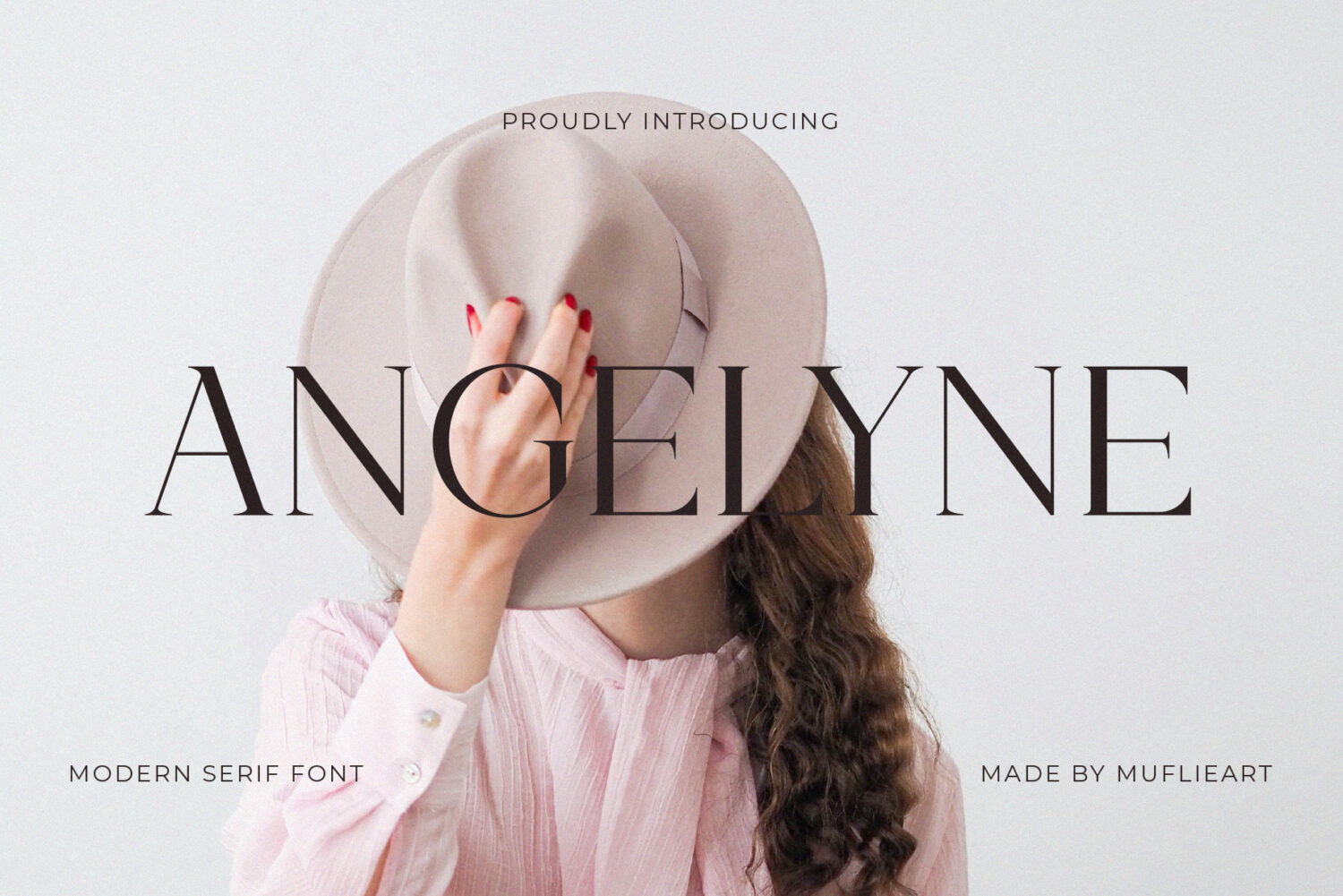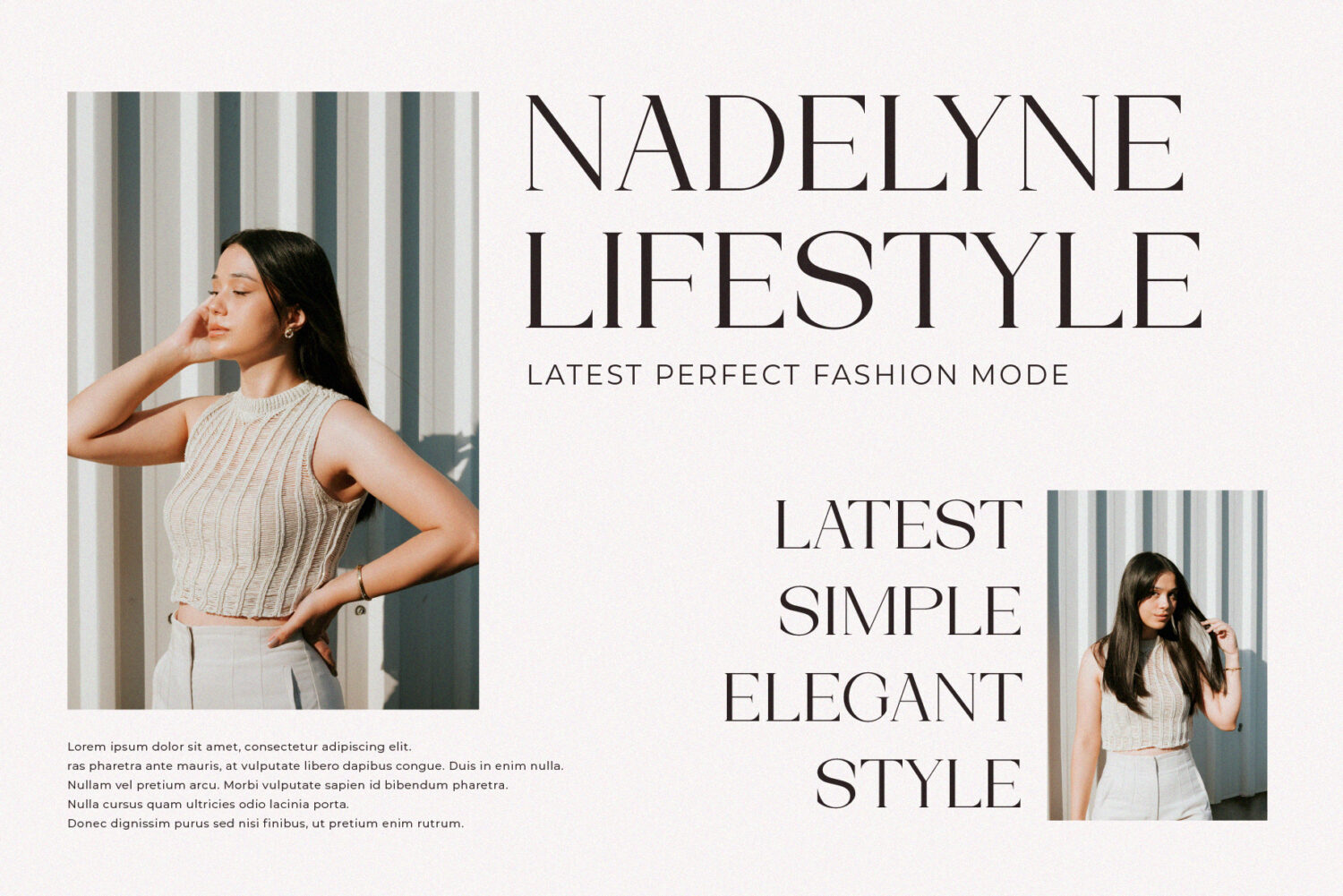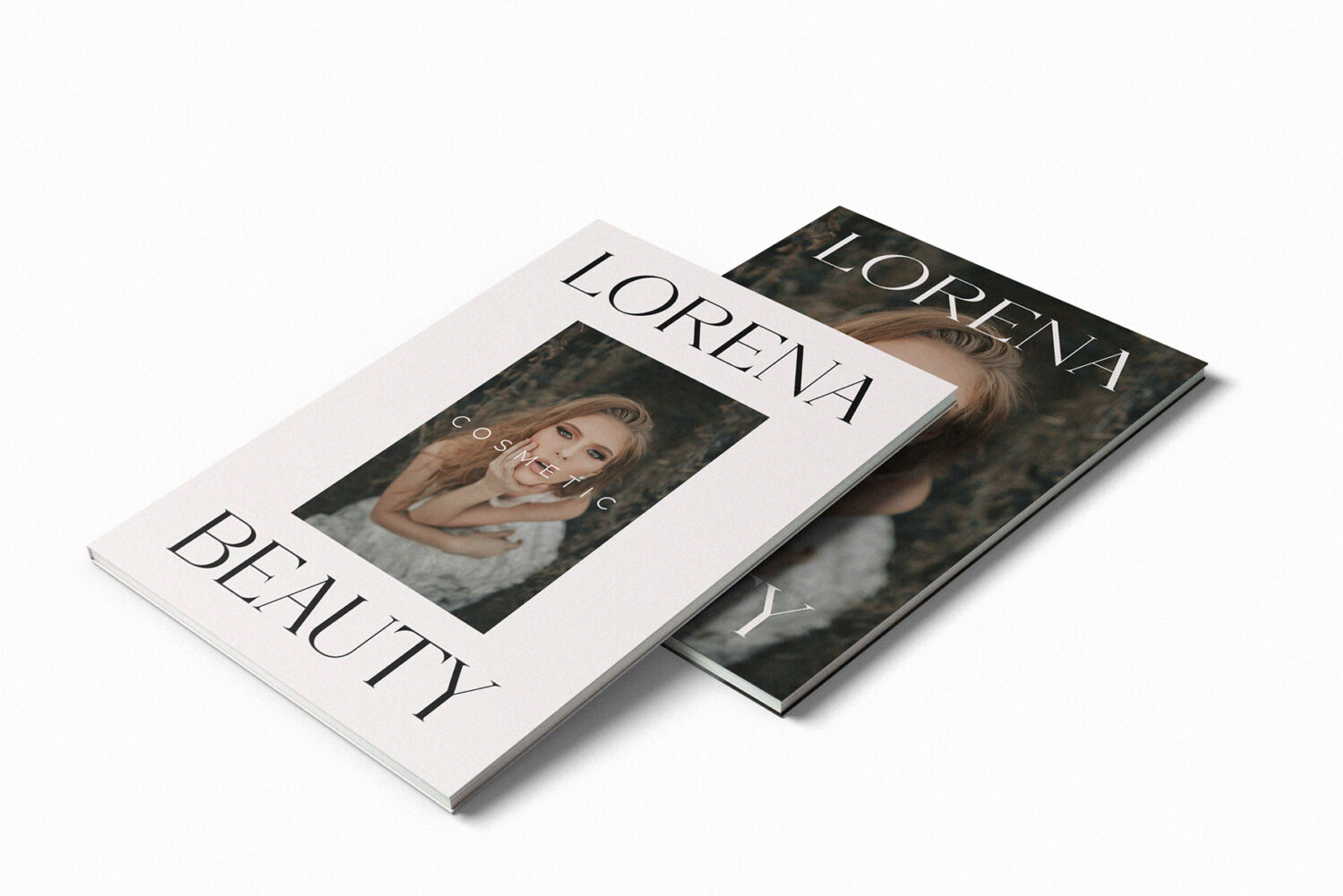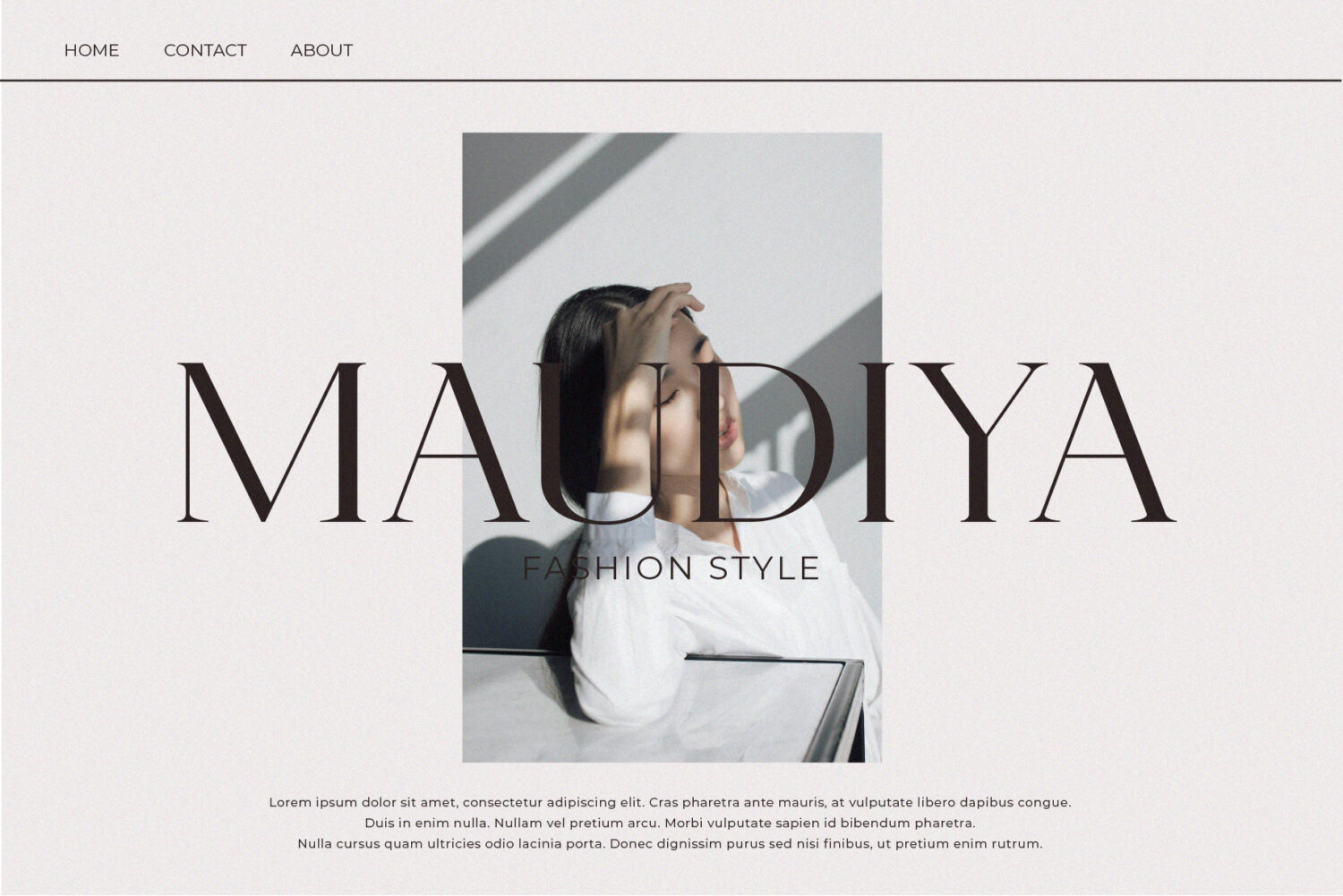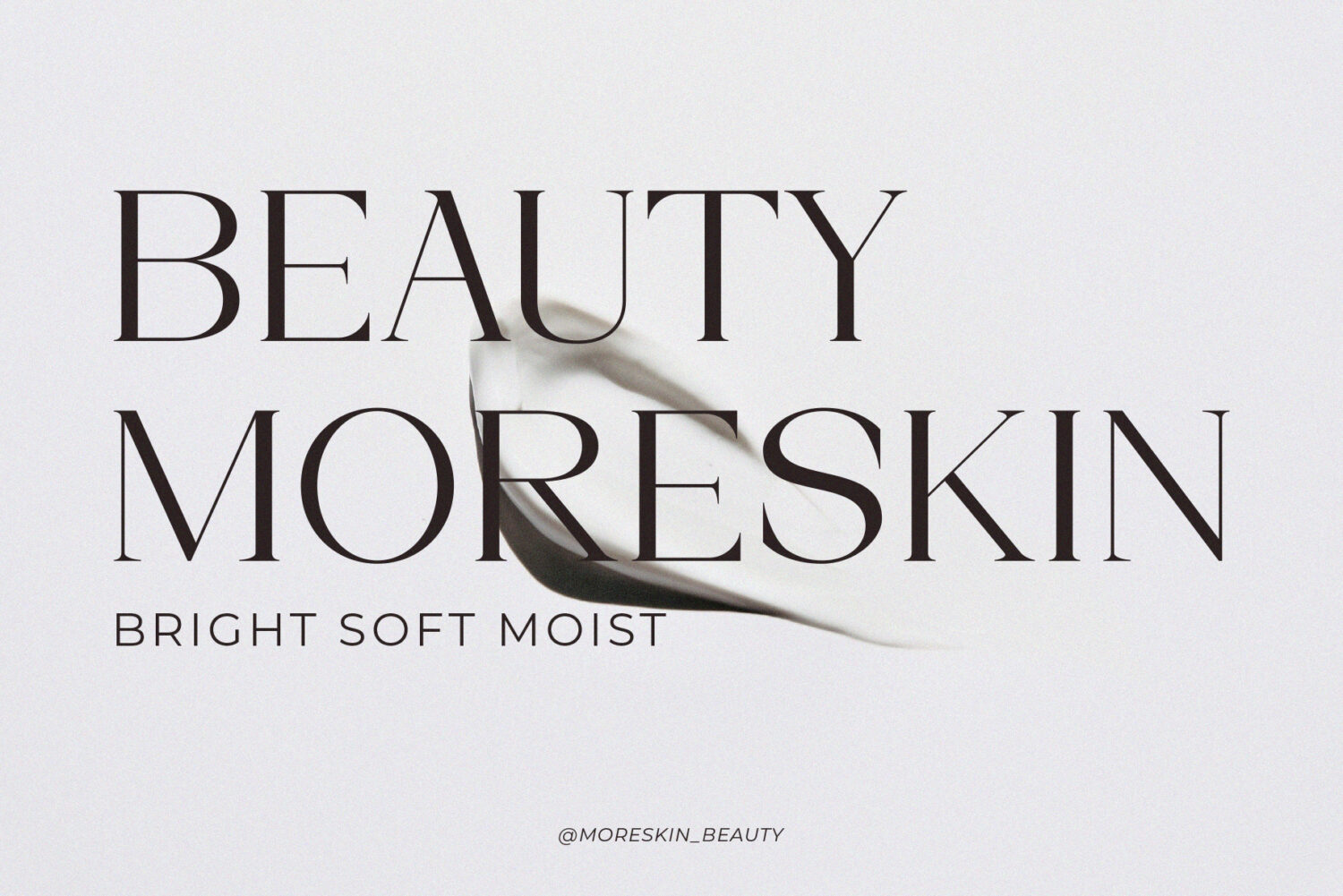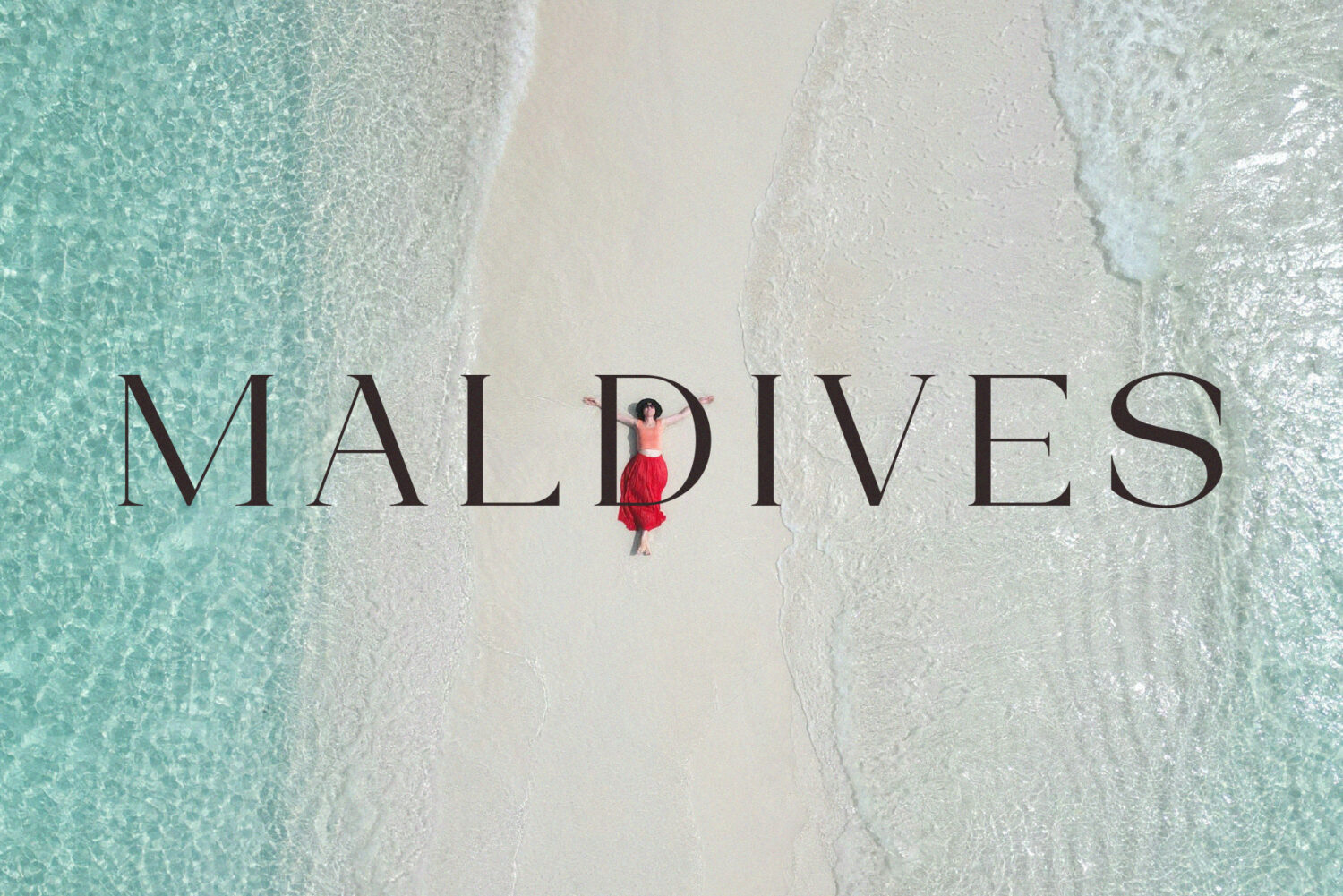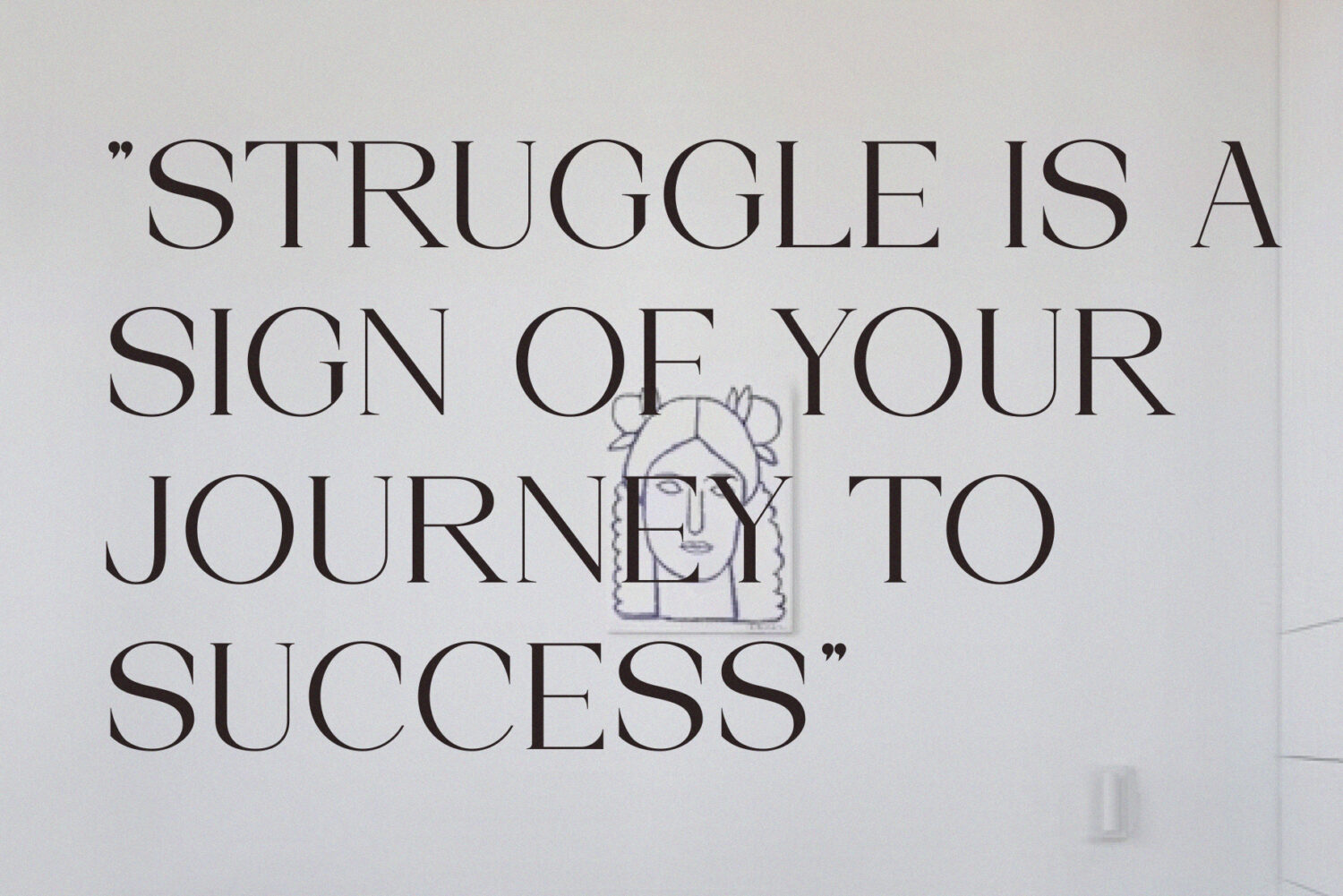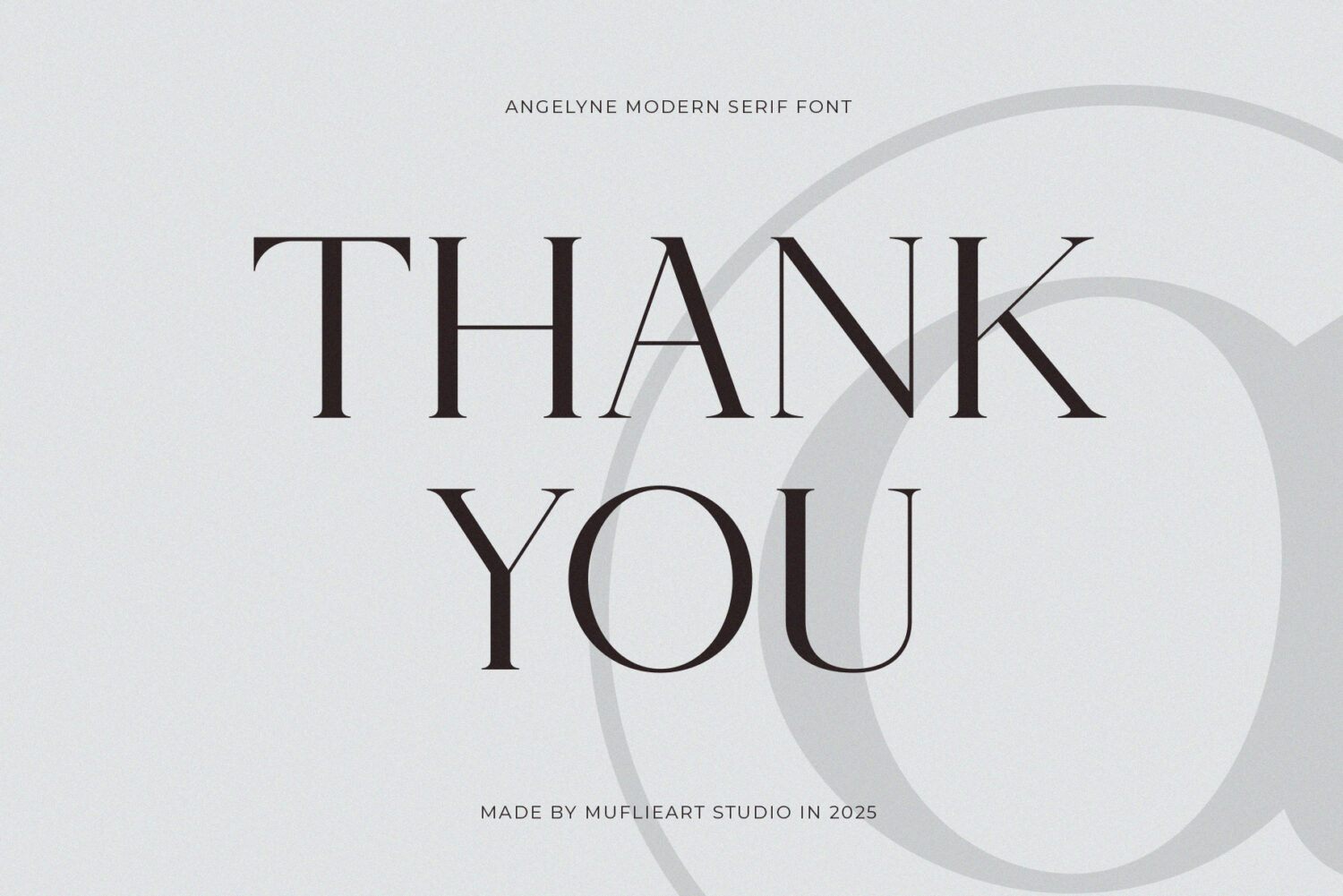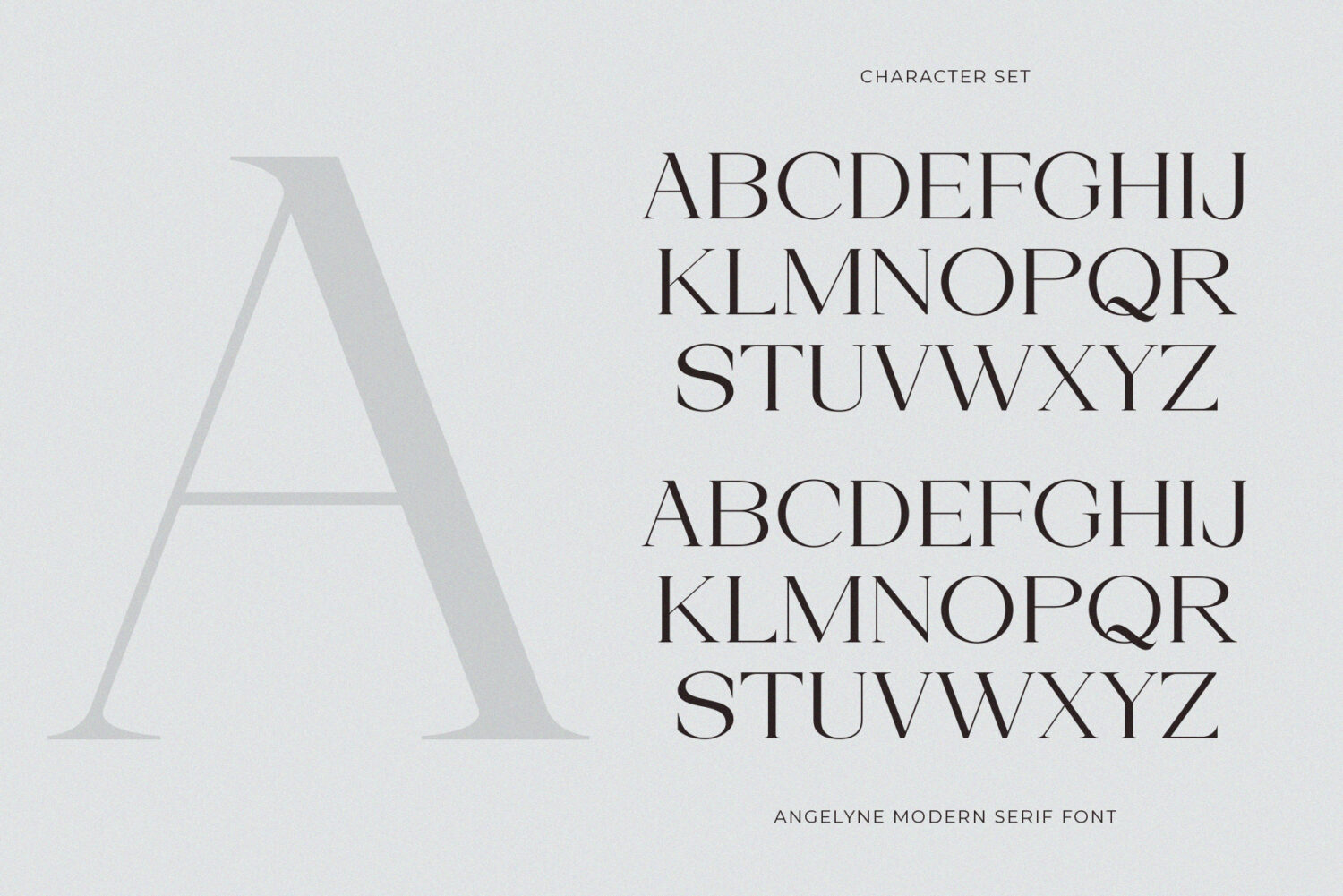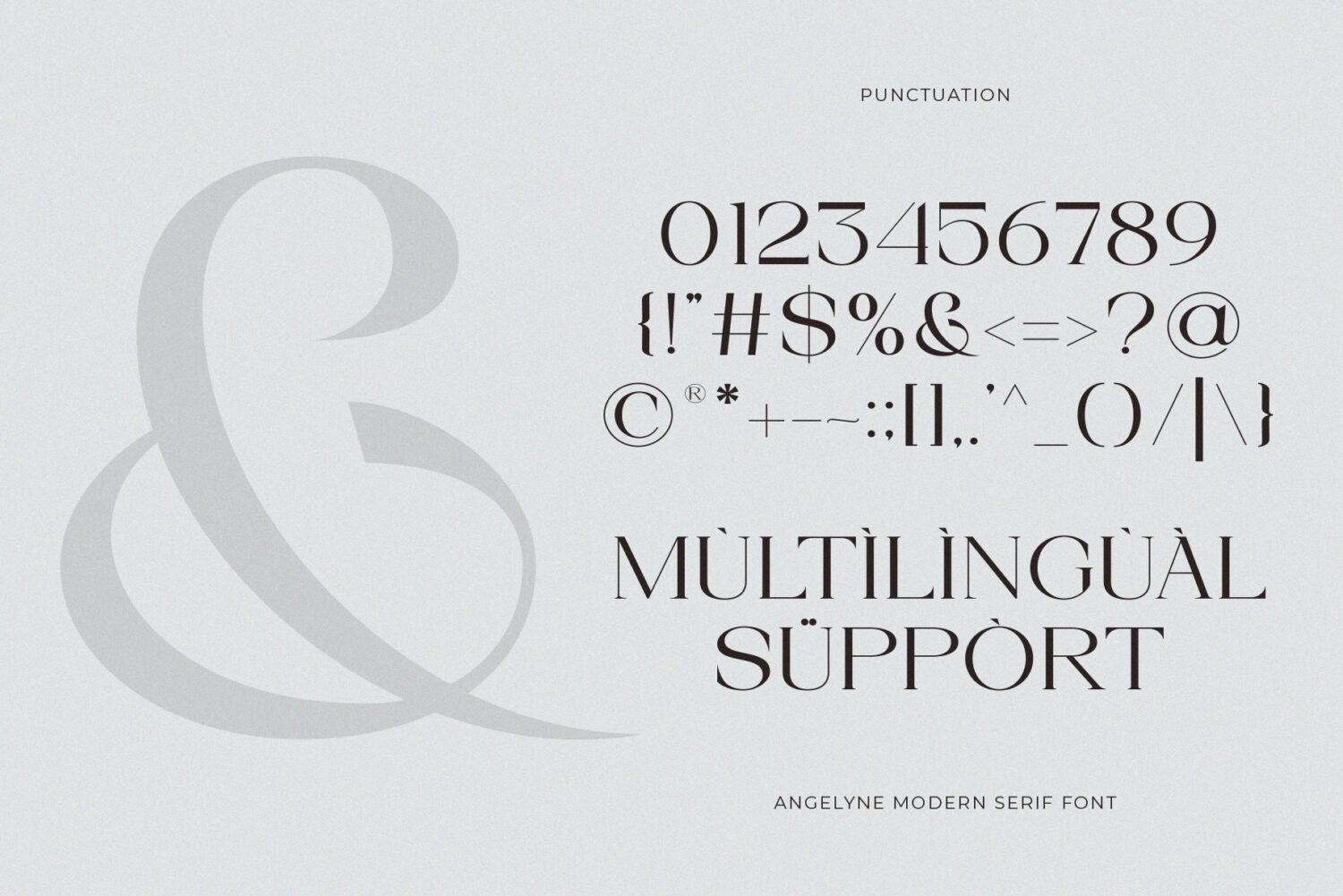
Introducing **Angelyne** the modern Serif, beautiful, and simple. With its modern and minimalist look, Angelyne brings a luxurious, classy, and clean style to your projects such as websites, modern logos, brand identities, social media quotes, wedding stationery, magazines, and more!
Angelyne features unique and classy capital letters A to Z making Angelyne a beautiful font that can be customized for various projects and jobs you want.